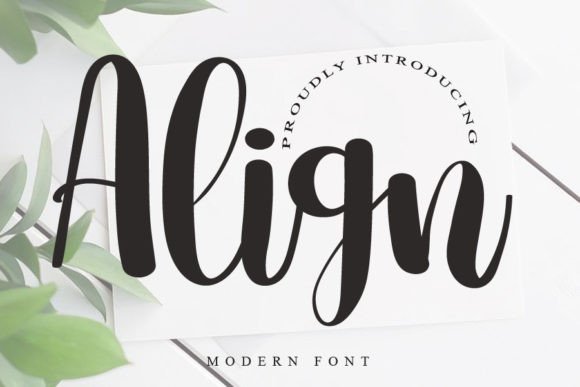
Introducing Align: The Modern and Fresh Handwritten Script Font
Are you looking for a font that can add a touch of luxury to your design projects? Look no further than Align, a modern and fresh handwritten script font that is sure to elevate your designs to the next level. In this article, we’ll take a closer look at Align and explore its features, benefits, and uses.
What is Align Font?
Align is a beautifully crafted handwritten script font that exudes elegance and sophistication. Its modern and fresh design makes it perfect for a wide range of design projects, from branding and advertising to packaging and digital media. With its flowing lines and cursive connections, Align is sure to add a touch of luxury to any design.
Key Features of Align Font
- Modern and Fresh Design: Align boasts a modern and fresh design that is sure to make your designs stand out.
- Handwritten Script: The font features a beautiful handwritten script that adds a touch of elegance and sophistication to any design.
- Luxury Feel: Align is designed to add a luxury feel to your designs, making it perfect for high-end branding and advertising projects.
- Versatile: The font is versatile and can be used for a wide range of design projects, from digital media to print materials.
Benefits of Using Align Font
There are many benefits to using Align font in your design projects. Here are just a few:
- Adds a Touch of Luxury: Align is designed to add a touch of luxury to your designs, making it perfect for high-end branding and advertising projects.
- Improves Readability: The font features clear and flowing lines that improve readability, making it perfect for body text and headings.
- Increases Brand Recognition: With its unique and elegant design, Align can help increase brand recognition and set your brand apart from the competition.
Uses of Align Font
Align font can be used for a wide range of design projects, including:
- Branding and Advertising: Use Align to create elegant and sophisticated branding and advertising materials, such as logos, brochures, and flyers.
- Packaging Design: Add a touch of luxury to your packaging designs with Align, perfect for high-end products and premium brands.
- Digital Media: Use Align to create engaging and elegant digital media, such as social media graphics, website headers, and email newsletters.
- Print Materials: Use Align to create beautiful print materials, such as business cards, letterheads, and invoices.
Tips and Tricks for Using Align Font
Here are some tips and tricks for using Align font:
- Use it Sparingly: Use Align font sparingly to add emphasis and create visual interest.
- Mix and Match: Mix and match Align font with other fonts to create a unique and interesting design.
- Experiment with Colors: Experiment with different colors and textures to add depth and interest to your design.
- Pay Attention to Readability: Pay attention to readability and make sure Align font is clear and easy to read.
In conclusion, Align is a modern and fresh handwritten script font that is sure to add a touch of luxury to any design project. With its elegant design, versatility, and ease of use, Align is perfect for designers of all levels. Whether you’re working on a branding project, packaging design, or digital media, Align font is a great choice.
- What is Align font?
- Align font is a modern and fresh handwritten script font designed to add a touch of luxury to any design project.